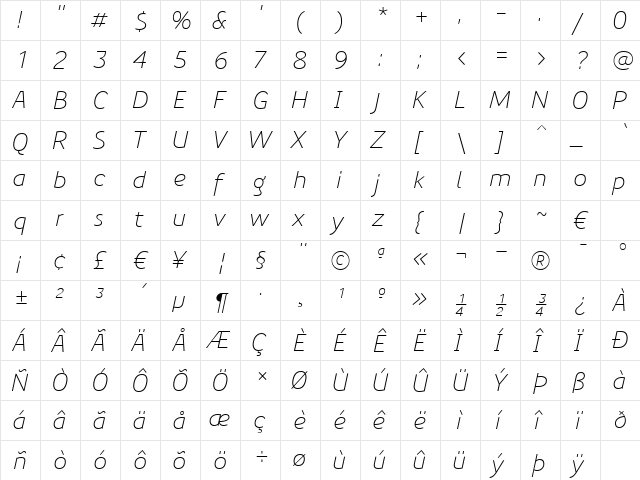
PreciousSansLightItalic Regular
Design Context for PreciousSansLightItalic Typeface
PreciousSansLightItalic offers clean, dependable letterforms without strong stylistic allegiance, making it a practical choice for designers who need flexibility. Its italic angle brings a sense of urgency and motion to the letterforms. The delicate stroke weight brings airiness and refinement to layouts.
Pro Tip: Try PreciousSansLightItalic for annotation and caption copy alongside an upright companion — the contrast in angle creates a dynamic but ordered typographic system.